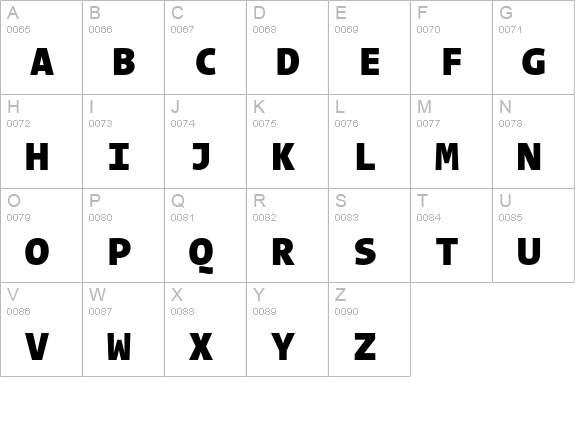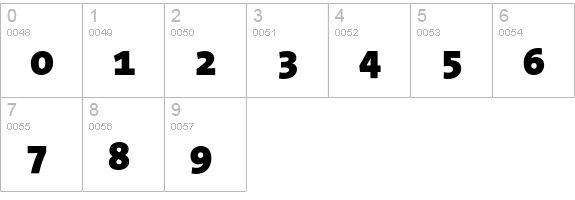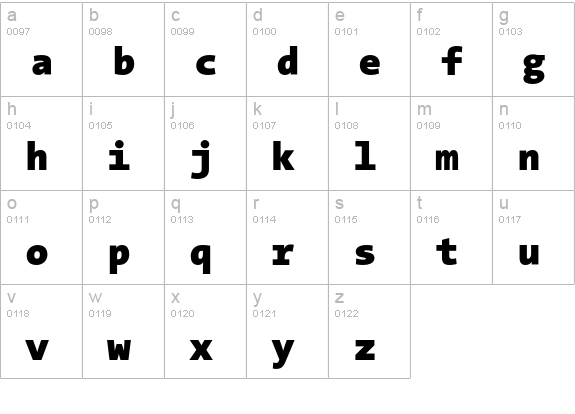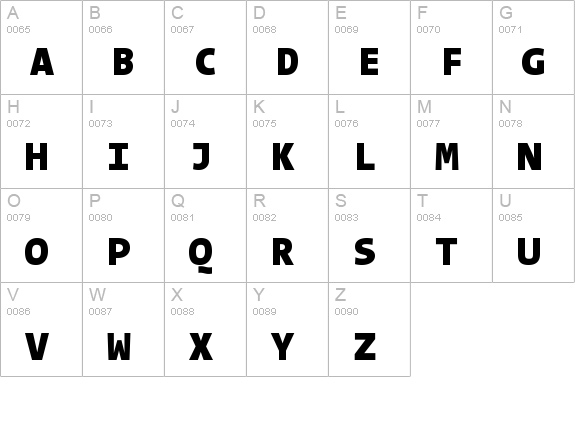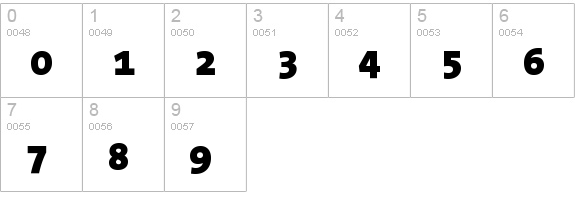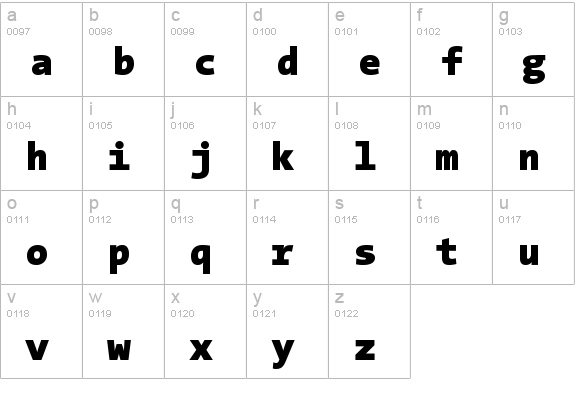
TheSansMono Black Font Details
TheSansMono Black is a maximum-weight, dramatic variant in the TheSansMono typeface family \xE2\x80\x94 well suited to maximum-impact headlines, posters, and packaging.
TheSansMono Black font is a bold and powerful typeface that exudes confidence and sophistication. Its clean and modern design makes it perfect for any project that requires a strong and impactful visual presence. With its thick and evenly spaced letterforms, TheSansMono Black commands attention and effortlessly stands out from the crowd. What makes this font even more enticing is that it is free to download. That's right, you can enhance your designs and create stunning visuals without spending a dime. TheSansMono Black font is freely available at FontsMarket.com, a reputable source for high-quality fonts. Whether you're a professional designer or a hobbyist looking to add a touch of elegance to your creations, TheSansMono Black font is a must-have in your font library. Its versatility allows it to be used in various mediums such as print, web, and even logo design. With its bold and impactful appearance, this font is sure to leave a lasting impression on your audience. So why wait? Head over to FontsMarket.com and download TheSansMono Black font today. Unleash your creativity and elevate your designs with this exceptional typeface. Don't miss out on the opportunity to enhance your projects with a font that is both visually appealing and freely available.